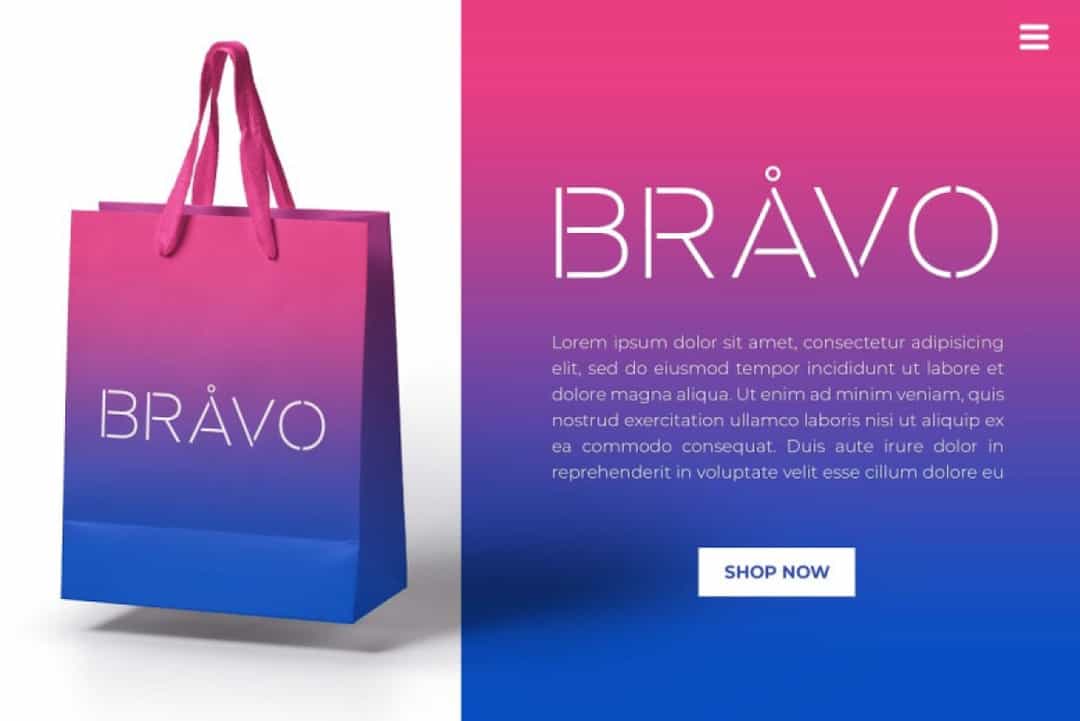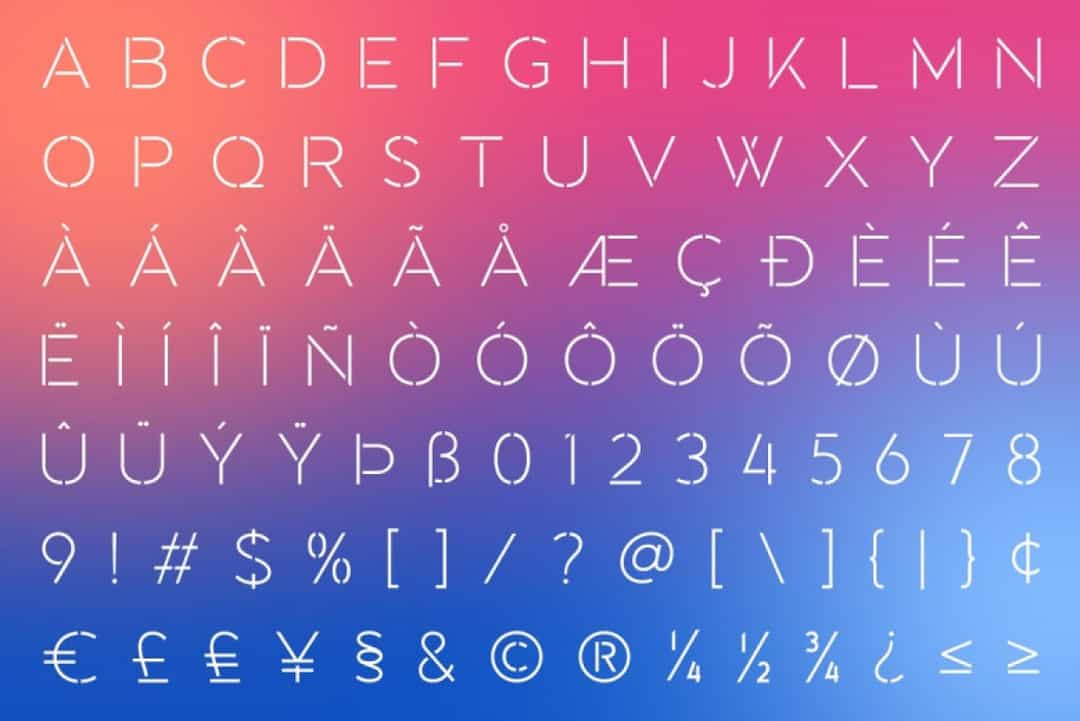
Towards Display Font is our latest minimalist stencil product inspired by iconic logos. Designed with care and precision, its elegance lies in its simplicity – an ideal addition to your design with straight outlines and circular weighted curves making this font easy and comfortable to integrate into any project space – be it blogs or magazines pages!